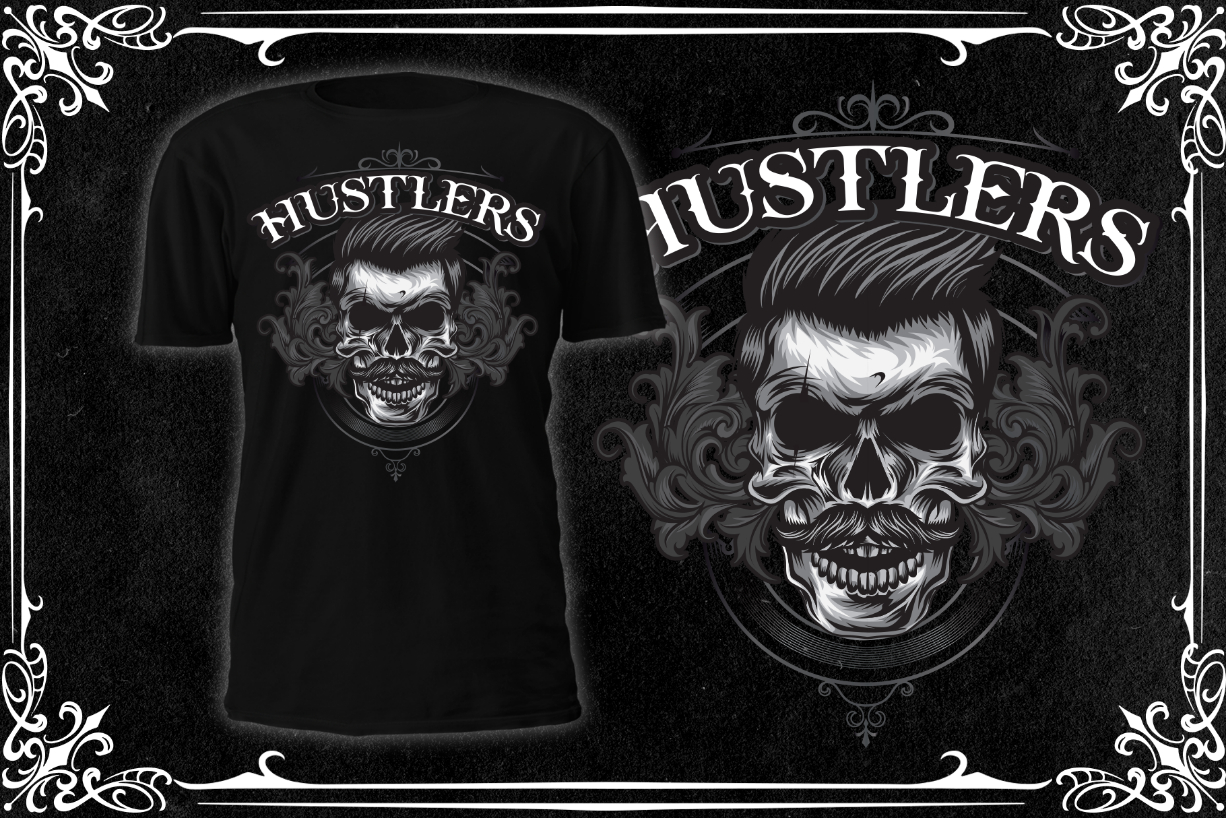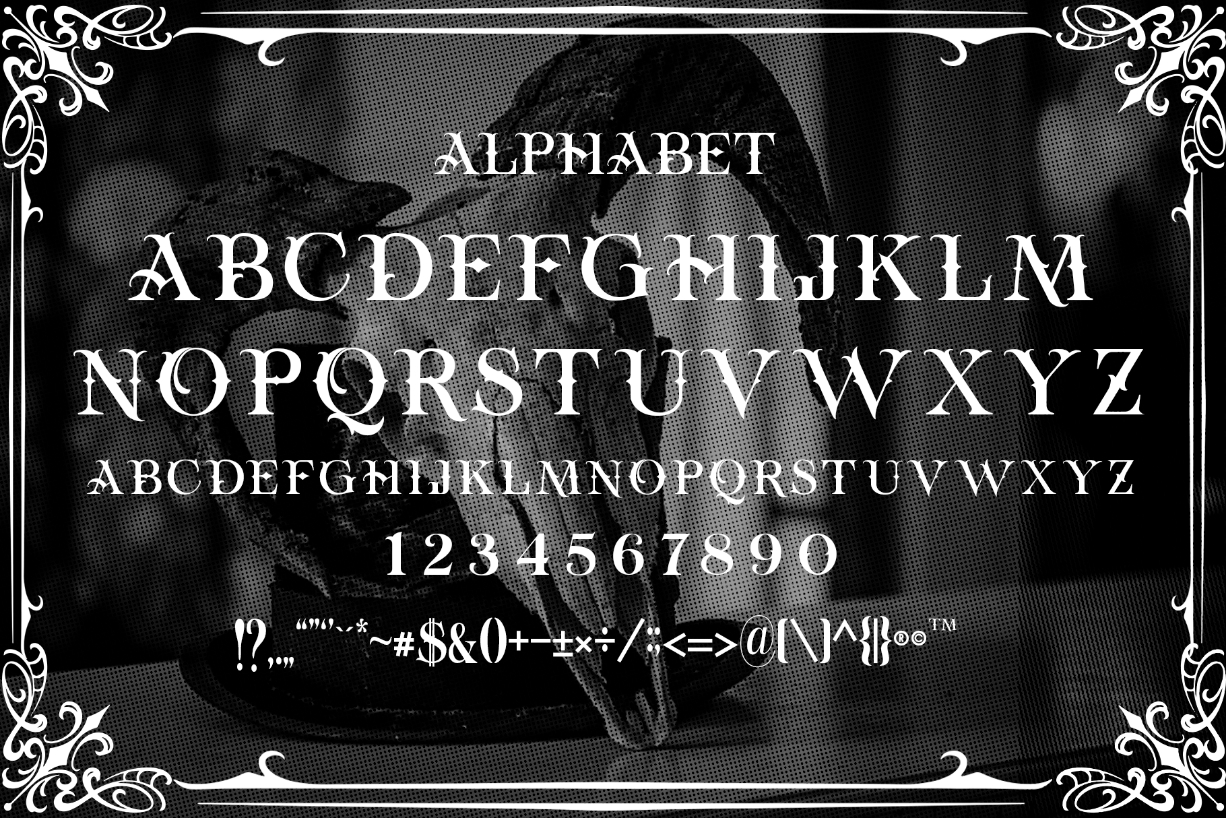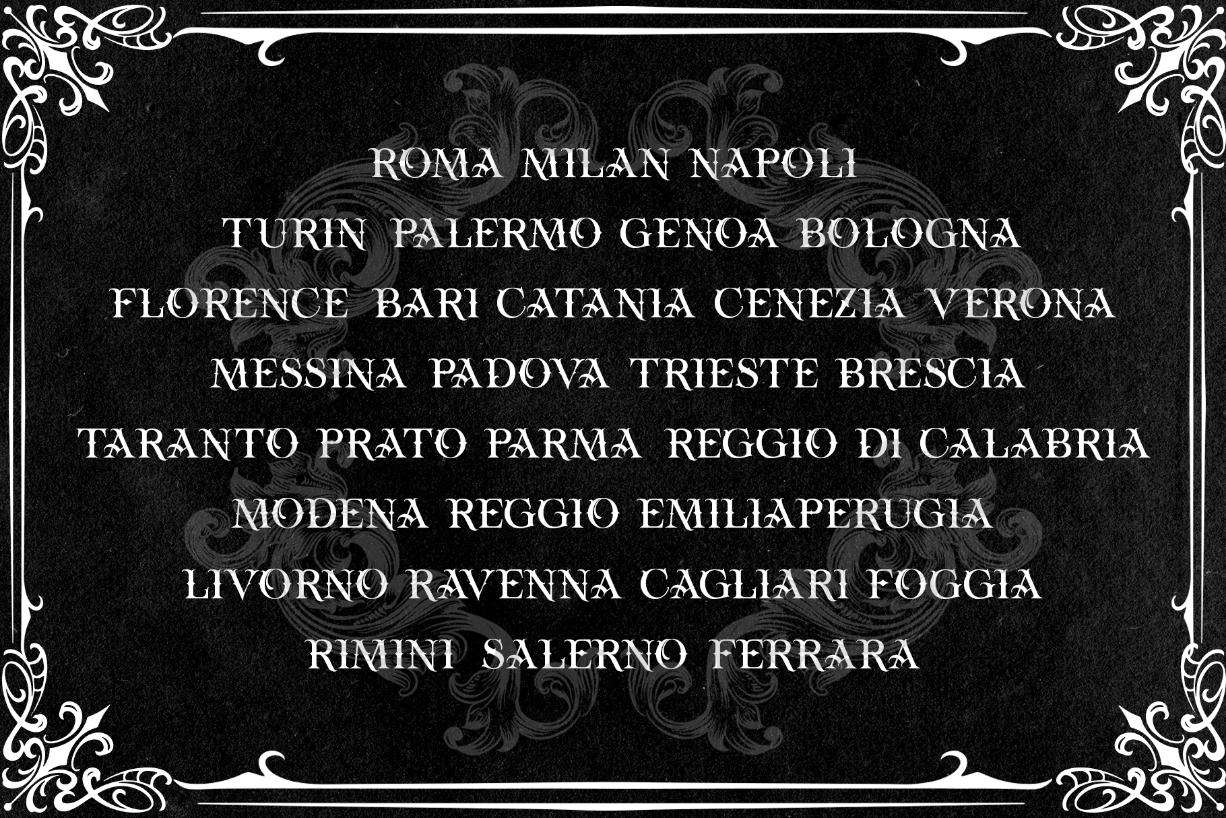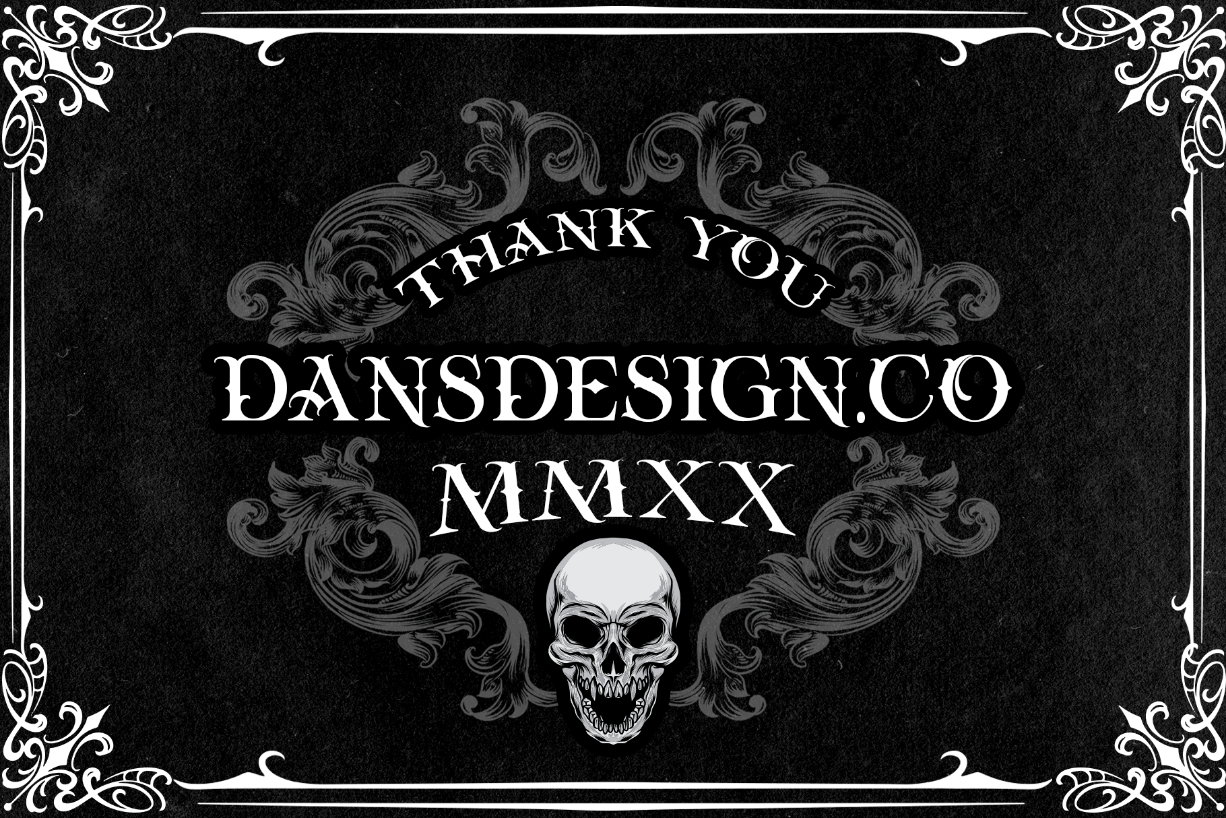
About Tension Font
Tension is an elegant, distinct and highly detailed blackletter font. This versatile script font has a wide spectrum of applications ranging from greeting cards to headlines and is guaranteed to add an assertive feel to your next project.